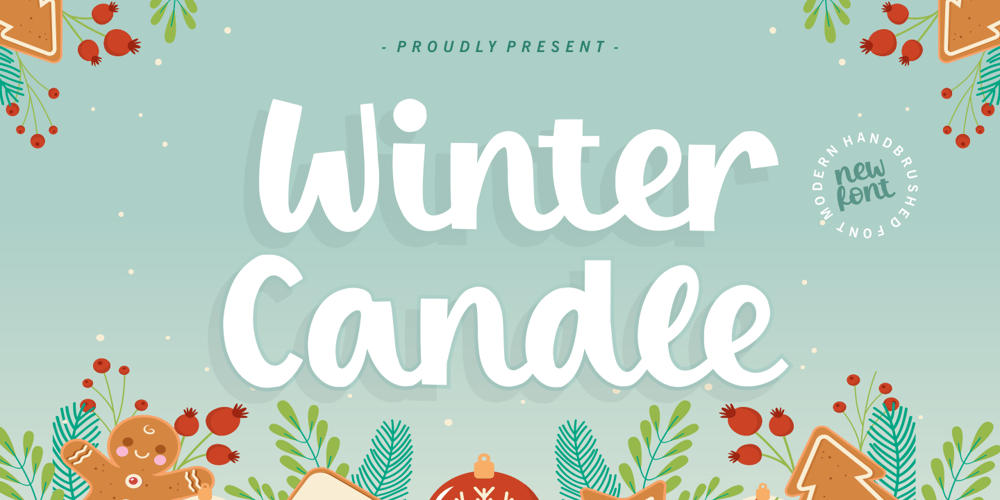
Winter Candle
Winter Candle font
Winter Candle Font Family was designed by Restu Angga and published by Balpirick. Winter Candle contains 1 styles and family package options. Winter Candle is a Modern Handbrushed Font.Winter Candle is perfect for product packaging, branding project, megazine, social media, wedding, or just used to express words above the background.Winter Candle also multilingual support.Enjoy the font, feel free to comment or feedback, send me PM or email.Thank you!